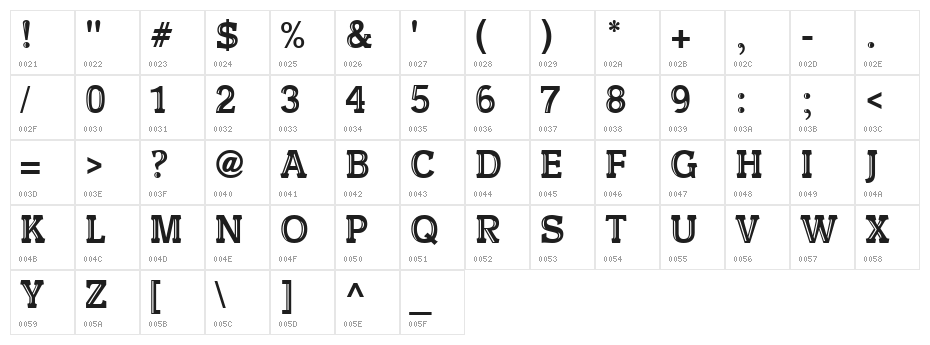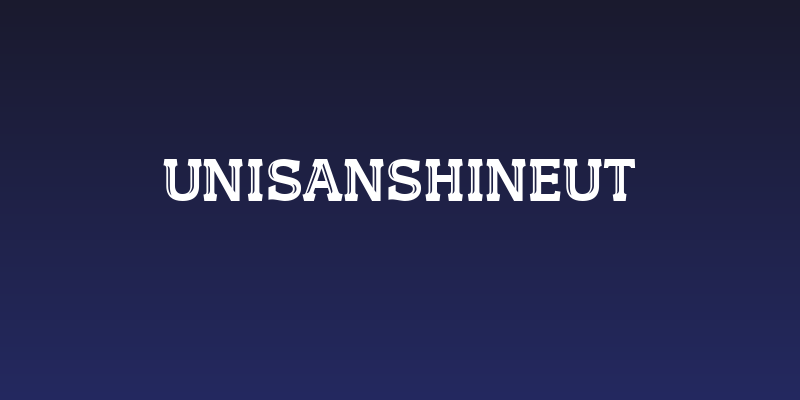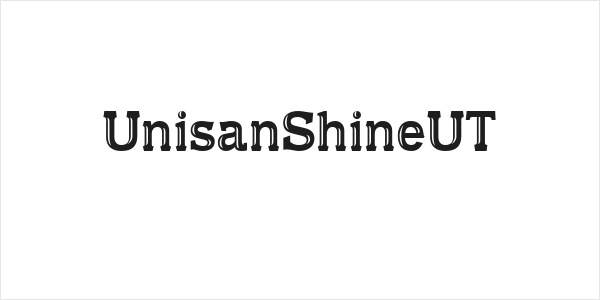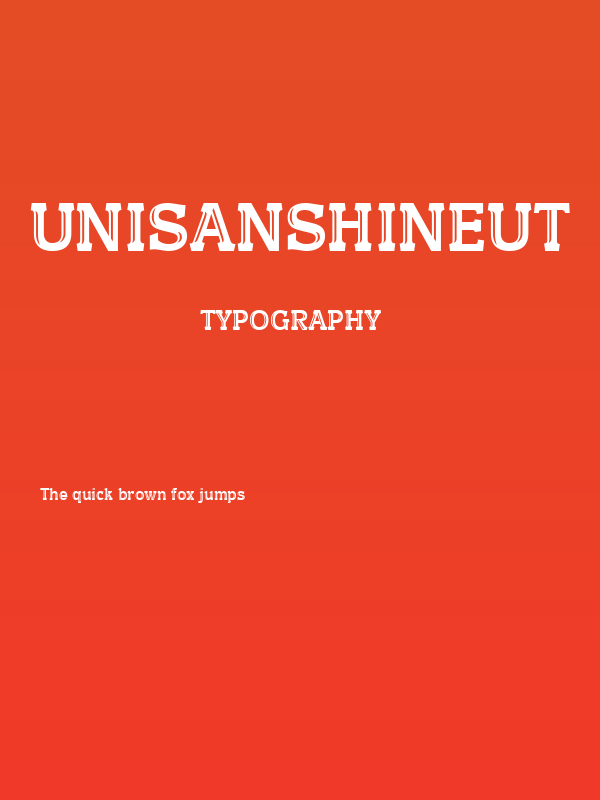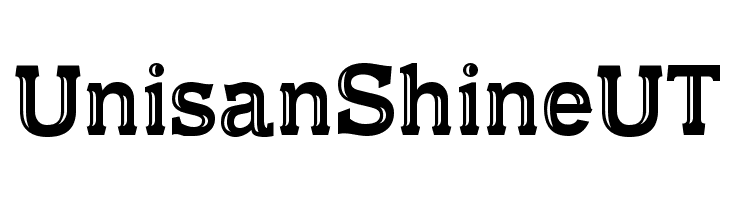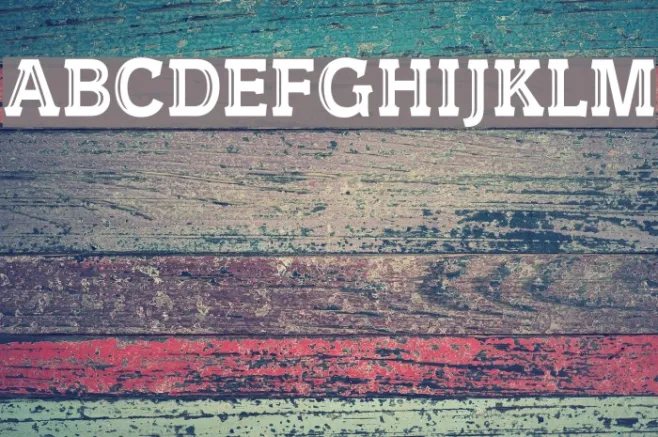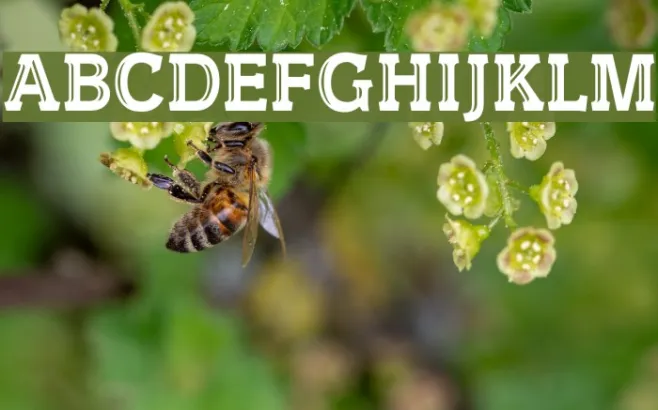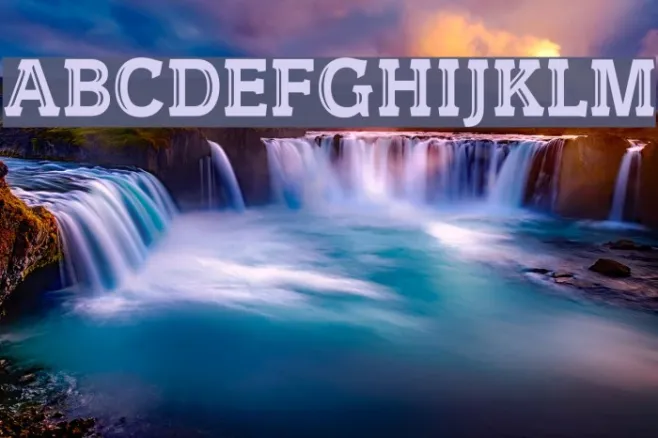
UnisanShineUT Font
UnisanShineUT Description
This font features a bold and robust design with strong serifs, giving it a classic yet modern appearance. The uppercase letters are particularly striking, with a consistent weight that ensures readability and impact. The lowercase letters maintain a harmonious balance with the uppercase, offering a smooth transition between characters. The numerals are clear and distinct, making them suitable for various applications. Special characters are well-integrated, maintaining the overall aesthetic of the font. The design is versatile, suitable for both digital and print media.